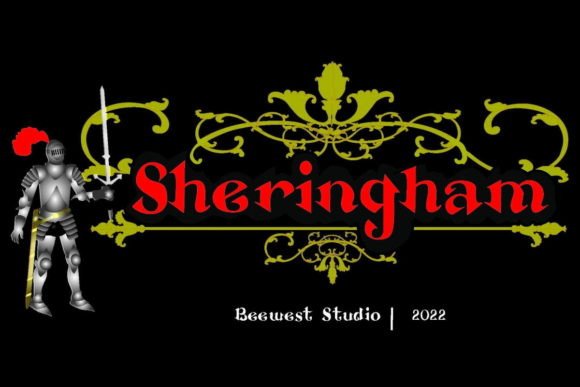
Journey through the annals of typography with Sheringham, a majestic blackletter font that echoes the grandeur of medieval manuscripts. Its bold strokes and classic charm evoke a sense of timeless elegance, adding a touch of sophistication to your creative projects.
Step into the world of Sheringham, where letters dance with intrigue and allure. This modern interpretation of a classic blackletter font will captivate your audience with its intricate details and commanding presence. From book covers that beckon to be read to branding that demands attention, Sheringham is your gateway to design excellence.
Unleash your creativity and let Sheringham guide you to new heights of expression. Its versatility knows no bounds, transforming ordinary text into captivating works of art. Whether you're crafting cards that convey heartfelt messages or creating eye-catching labels that demand a second glance, Sheringham will elevate your designs to new levels of sophistication.
Immerse yourself in the beauty of Sheringham, a font that speaks volumes without uttering a single word. Its bold strokes command attention, while its elegant curves exude timeless charm. It's the perfect choice for those seeking a font that makes a statement, whether you're designing wedding invitations that radiate romance or creating logos that leave a lasting impression.
With Sheringham at your disposal, the possibilities are endless. Explore new realms of creativity and let this remarkable font ignite your imagination. So embark on this typographic adventure and discover the power of Sheringham, the font that will transform your designs into masterpieces.